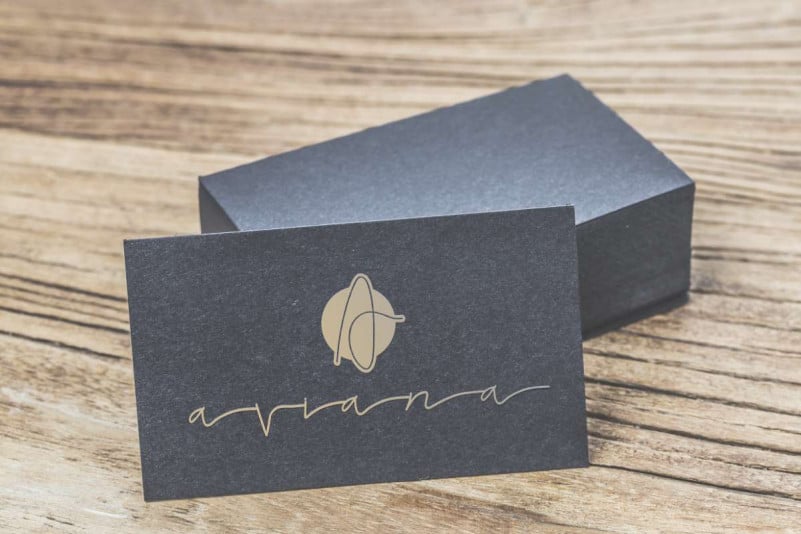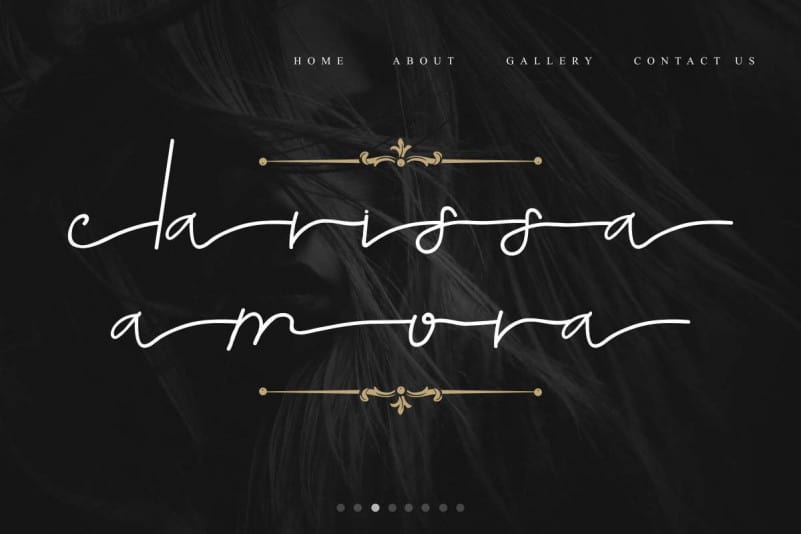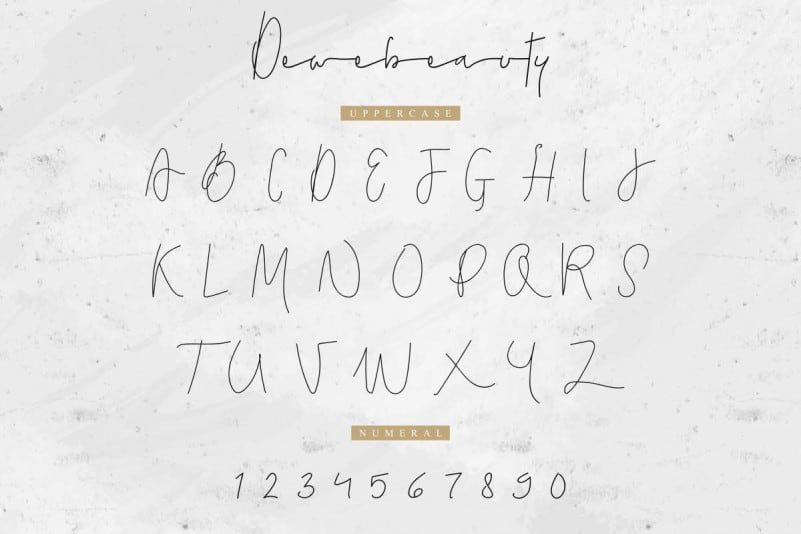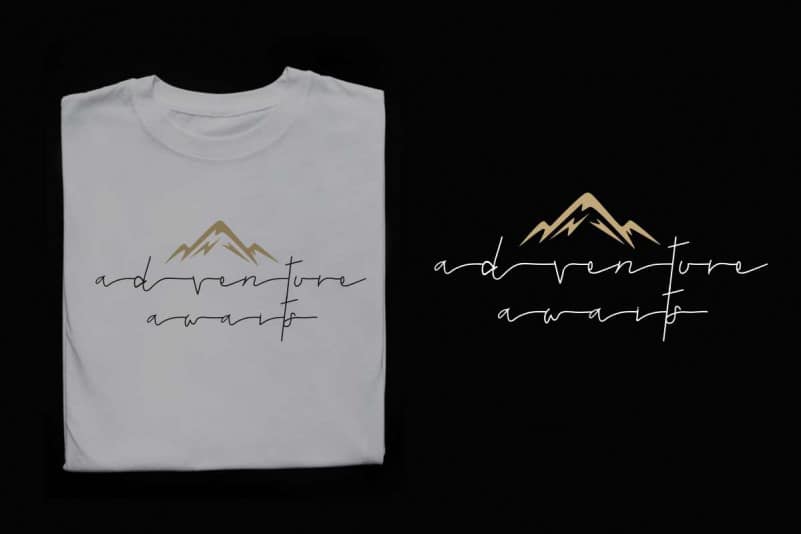
Dewebeauty Signature Font
Please meet our newest font : Dewebeauty Signature Font. Today EdricStudio present to you Dewebeauty Signature Font. This is a handwritten font with signature style. Perfectly crafted from our studio in Bandung and Garut. Made by typeface designers : Saila and Sarah
Dewebeauty Signature Font has an exclusive elegant signature style. With this font you can explore many industries and designs categories : Dentist, lawyer, designer, florist, wedding organizer, makeup, architect. With an extended license you can create anything you want : Branding (logo, stationery, bizcard, head letter, folder etc), promotions stuff (flyer, brochure, postcard etc), Digital marketing (Banner, Ads, cover etc), Personal Invitation, Magazine, Website etc.